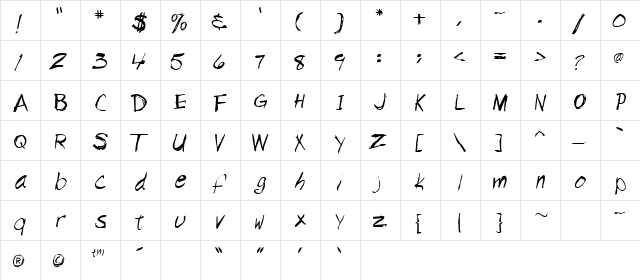
Handwrite-Marker Regular
Design Context for Handwrite-Marker Typeface
Handwrite-Marker flows with the natural rhythm of handwritten lettering, making it ideal for designs that call for warmth and personal expression.
Font Pairing: Combine Handwrite-Marker with a simple geometric sans for maximum contrast — the tension between flowing curves and clean structure is a classic typographic pairing.
Pro Tip: Pair Handwrite-Marker with a clean sans-serif for supporting text. The contrast between fluid script and geometric structure creates an elegant typographic hierarchy.